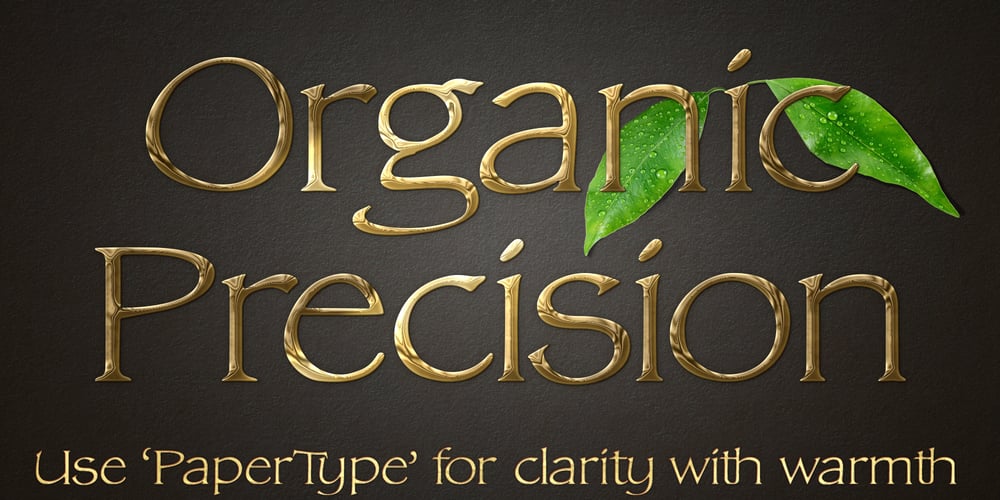
DT Paper Type Font Family was designed by Scott Spensley and published by Dragon Tongue Foundry. DT Paper Type contains 2 styles and family package options. DT PaperType has evolved and morphed over time from quite distant origins.I previously created DT Paperside.It was neither Papyrus nor SSI Countryside, but was inspired in some ways by the Papyrus form, although untextured and smoother, and had the more open dimensions and proportions, similar to that of Countryside SSi, with its larger easily readable lowercase body, and more consistent, shorter stems.DT Paperside had an open scripted feel which was pleasing to the eye and easy to read. DT PaperType has since been crafted from of the original Paperside font.The Organic flow and comfortable form of Paperside has been retained, but it has been shifted very much from the feel of a script font, into a quality, extremely readable, organic and friendly, serif font, retaining its clarity, while adding a great deal of pose and class.This font is primarily suited to body text, and as such is extremely readable. It does however also make an excellent Display font, and comes with a full set of over sized Caps that drop below the line to stand out on a headline when required.Paperside can also automatically enhance the first letter of most sentences, and changes other letters to suit their position within words, and the letters they appear beside.Now comes with an italic that curves and softens various letters.For best results, use this ‘smart font’with Contextual Ligatures turned on.Mulitiple Stylistic Alternatives are included.Inspiration for this fonts predecessor (Paperside) came from two other fonts.Papyrus: designed by Chris Costello and created in 1982, it is a hand-drawn textured typeface, emulating texts written in biblical times.One of the most used (and misused) fonts of all times.Owned by Letraset, and currently published by the Internation Typeface Corporating (ITC).Countryside SSi: The serif font of an unknown designer, currently licensed by Southern Software Inc.Feel free to preview some other Dragon Tongue fonts that are yet to be released, at https://www.dragon-tongue.com/fonts